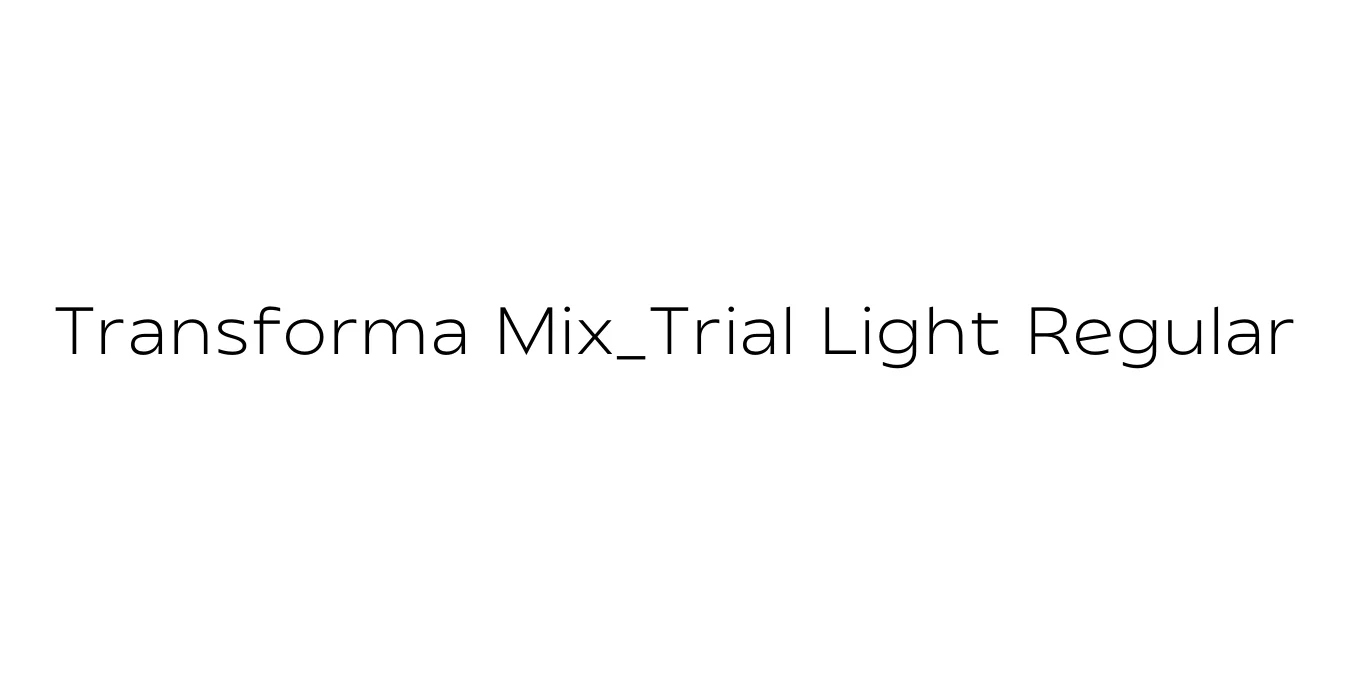
Transforma Mix_Trial Light Regular
Designed by Cosimo Lorenzo Pancini, Francesco Canovaro
| Category | Sans Serif / Hybrid |
| Designer | Cosimo Lorenzo Pancini, Francesco Canovaro |
| Similar Fonts | Aptifer, Rotis, Input Sans |
Transforma Mix is a sophisticated hybrid typeface created by the renowned Zetafonts foundry. Designed by Cosimo Lorenzo Pancini and Francesco Canovaro, this font family belongs to a larger superfamily that explores the fluid boundaries between sans, serif, and script styles. The 'Mix' variant specifically captures a unique middle ground, blending the clean lines of a sans-serif with the subtle cues of a serif typeface to create a contemporary, experimental aesthetic.
The Transforma Mix_Trial Light Regular weight provides a delicate yet legible presence, making it ideal for high-end editorial work and complex branding projects. Its rhythmic spacing and distinctive character shapes offer a professional tool for designers looking to break away from traditional typographic norms while maintaining a high level of sophistication and readability in various print and digital formats.
Transforma Mix_Trial Light Regular Best Uses
Excellent for magazines and long-form articles requiring a sophisticated touch.
Perfect for unique visual identities that blend traditional and modern elements.
Great for clean, high-end websites looking for a distinctive typographic voice.